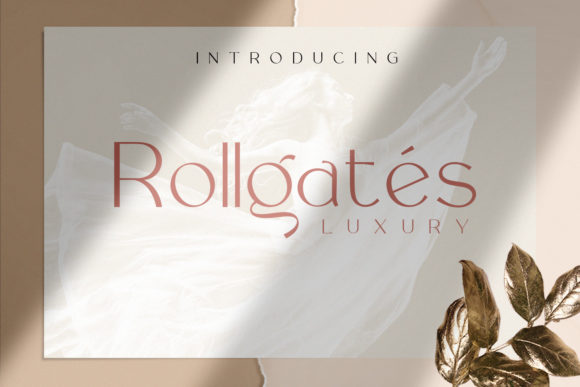
Rollgates Font
Introducing Rollgates Font: A Typographic Masterpiece for Discerning Designers
In the realm of design, fonts hold the power to transform the mundane into the magnificent, and Rollgates Font stands as a testament to this transformative ability. This extraordinary display font, meticulously crafted by the renowned Cotbada Studio, is an exquisite fusion of sophistication and style, ready to elevate your creative projects to new heights of elegance.
Rollgates Font's captivating presence stems from its unique blend of sharp, geometric lines and graceful curves, resulting in a visually striking aesthetic that commands attention. Its bold and confident strokes exude a sense of authority and elegance, while its intricate details lend a touch of playfulness and intrigue. Whether you're crafting logos, designing posters, or creating eye-catching social media graphics, Rollgates Font is the perfect choice to make your words shine.
With Rollgates Font in your creative arsenal, you'll effortlessly elevate your designs, captivating your audience and leaving a lasting impression. Its versatility extends across a wide range of projects, from branding and marketing materials to website design and editorial layouts. Its ability to seamlessly blend with various design styles makes it the perfect choice for designers seeking a font that can adapt to their ever-changing creative visions.
Rollgates Font is more than just a collection of letters; it's an invitation to embark on a journey of creativity, where your imagination knows no bounds. Its distinct character will infuse your designs with a touch of exclusivity, setting them apart from the ordinary and propelling them into the realm of the extraordinary. Embrace the transformative power of Rollgates Font and witness the remarkable difference it brings to your creative endeavors.